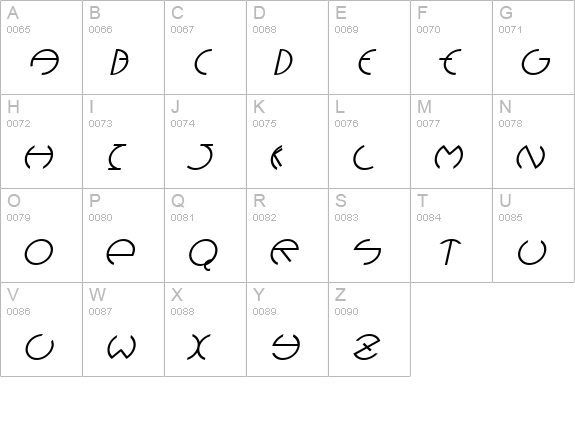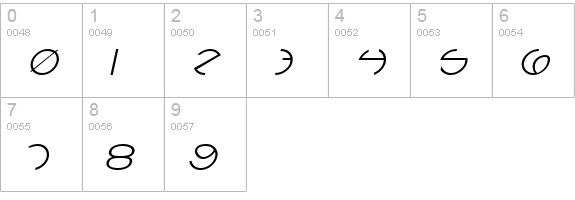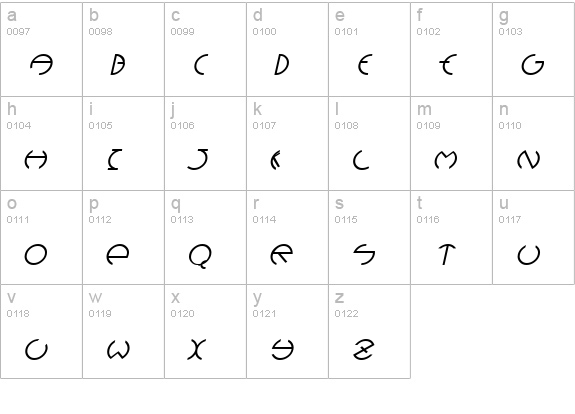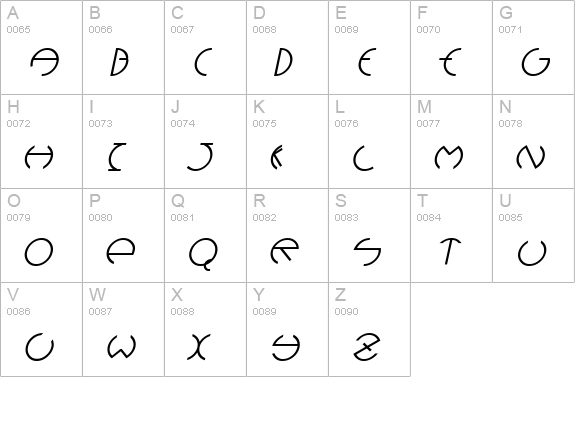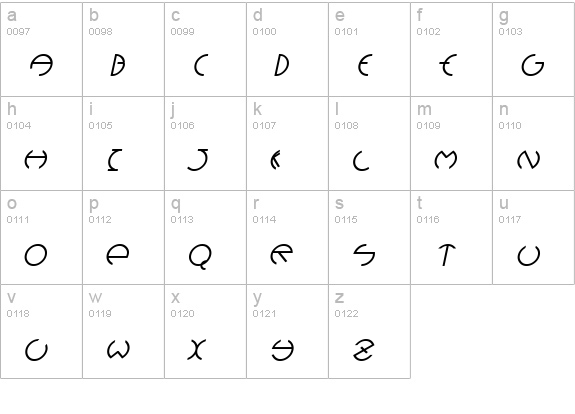
Introducing Devil BoldItalic font, a striking and bold typeface that exudes confidence and sophistication. This unique font features italicized letterforms with a devilishly stylish twist, making it perfect for creating eye-catching designs that demand attention. What sets Devil BoldItalic font apart is its seamless blend of boldness and elegance, making it versatile for a wide range of design projects. Whether you're working on branding materials, posters, invitations, or any other creative endeavor, Devil BoldItalic font is sure to make a bold statement. Best of all, Devil BoldItalic font is available for free download at FontsMarket.com. Now you can unleash your creativity with this stunning font without any cost. Don't miss out on the opportunity to elevate your designs with the bold and captivating Devil BoldItalic font. Download it today and let your creativity run wild!